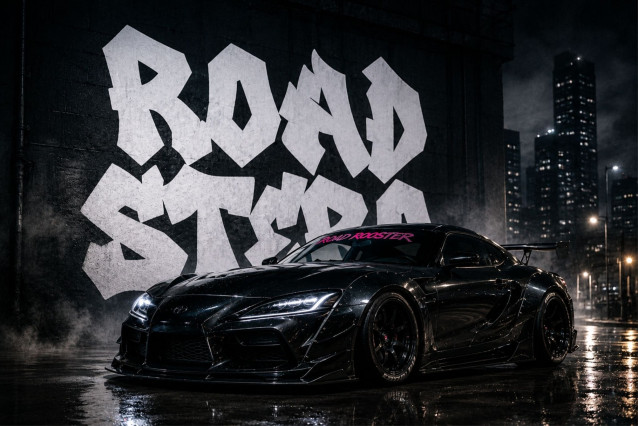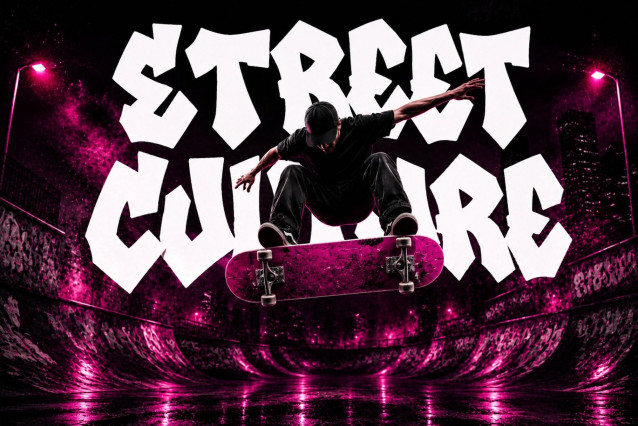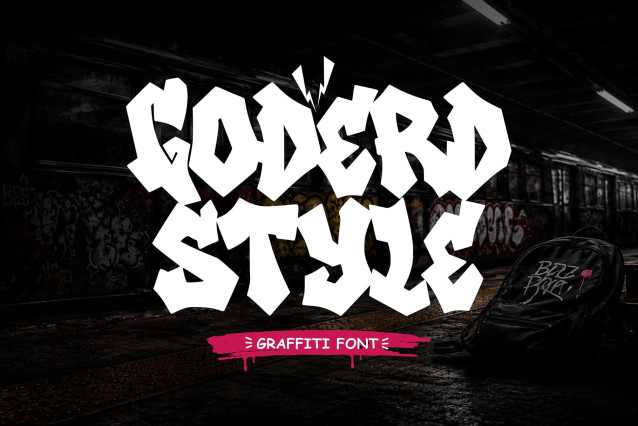
Goderd Style is a bold and commanding graffiti font designed for creators who want powerful typography with authentic urban attitude. Inspired by heavyweight street lettering, large-scale graffiti murals, and modern hip-hop culture, this heavy graffiti font delivers thick letterforms that create maximum visual impact. Whether you’re designing streetwear collections, music artwork, esports branding, posters, logos, or social media campaigns, Goderd Style graffiti font gives your typography a fearless presence that instantly captures attention.
Built with strong proportions and bold construction, Goderd Style reflects the confidence of traditional graffiti while maintaining the clean structure required for professional design work. This urban graffiti font is perfect for designers looking for typography that feels raw, expressive, and unmistakably bold without sacrificing readability.
Unlike ordinary display fonts, Goderd Style graffiti font emphasizes weight, balance, and visual strength. Every letter is carefully crafted to dominate layouts and communicate energy, making it an excellent choice for creative professionals who need typography that stands out in competitive visual environments.